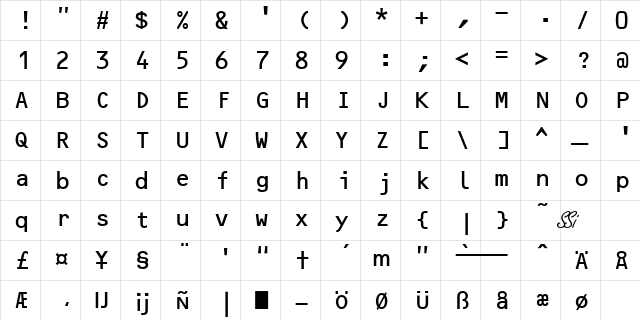
OCR 2 SSi Regular
Design Context for OCR 2 SSi Typeface
OCR 2 SSi takes a measured approach to typography — its balanced proportions and neutral character make it a reliable workhorse for both digital and print work.